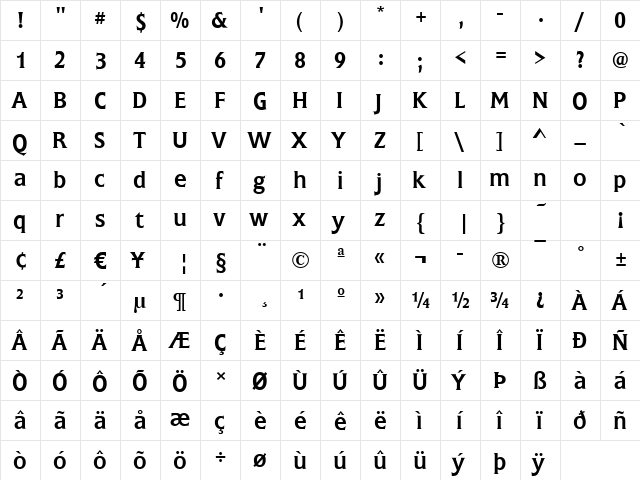
Frascati Regular
Design Context for Frascati Typeface
Frascati offers clean, dependable letterforms without strong stylistic allegiance, making it a practical choice for designers who need flexibility.
Pro Tip: Use Frascati in both headline and body roles to test its range before committing to a single application.